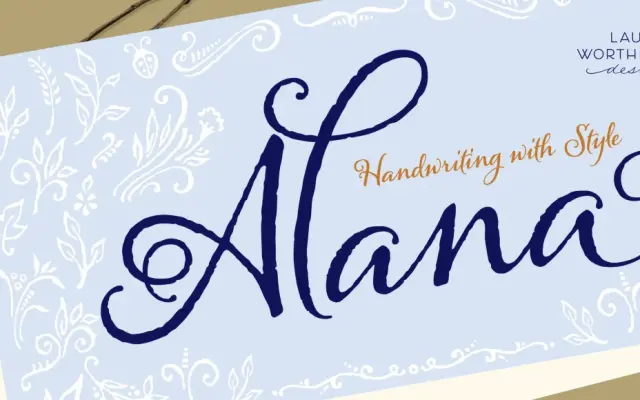
Alana
A connected script with ink-textured strokes, over 300 alternates including swash capitals, and 62 botanical and illustrative ornaments.
Designed for settings ranging from menu details to display headlines, the typeface shifts character depending on size: at small sizes the letterforms read with casual warmth, while at display sizes rough ink edges become visible. The family includes three styles — Regular, Regular Smooth and Bold — and ships with swash capitals, ornamented forms and a set of botanical fleurons, birds and decorative bugs coded for access without professional design software. Latin Extended coverage spans 27 languages including Central and Eastern European scripts.
A connected, flowing script with casual elegance and ink-on-paper texture; the letterforms join continuously and include swash capitals and ornamental alternates typical of the script category.